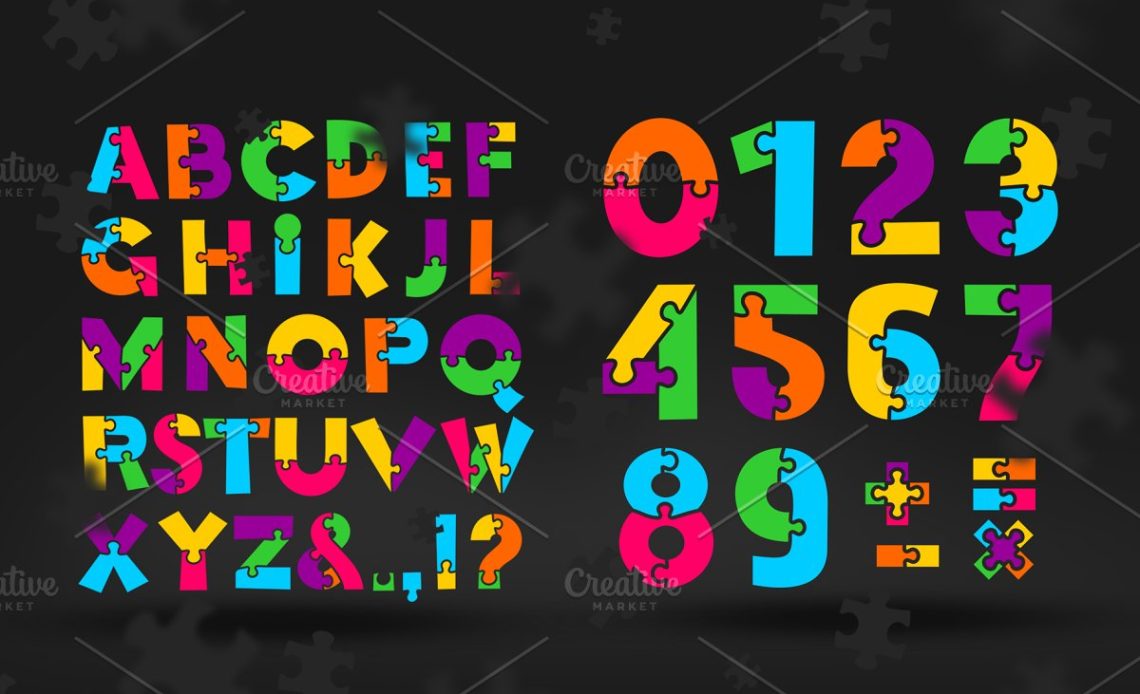
Introducing Puzzle Font OTF - your ultimate solution for captivating political signs! Created by the talented Anatolii Kovalov, this symbol-based font is not only visually appealing but also packed with emotions and creativity.
With Puzzle Font, you can effortlessly convey powerful messages on your political signs, grabbing attention and leaving a lasting impact. This font is the perfect choice for those looking to make a bold statement and stand out from the crowd.
Featuring a comprehensive set of alphabets and numbers, Puzzle Font offers endless possibilities for expressing your political ideas. Whether you're advocating for change, supporting a candidate, or raising awareness, this font will help you convey your message with clarity and style.
Moreover, Puzzle Font offers both color and black-and-white versions, giving you the freedom to adapt your signs to any setting or aesthetic. Choose the vibrant hues to grab attention at rallies and events, or opt for the classic black-and-white style for a more sophisticated and timeless look.
This font is not just about its eye-catching design; it's also about the emotions it evokes. Puzzle Font captures the essence of passion, unity, and determination, empowering you to connect with your audience on a deeper level. Let your political message resonate with people's hearts and inspire them to take action.